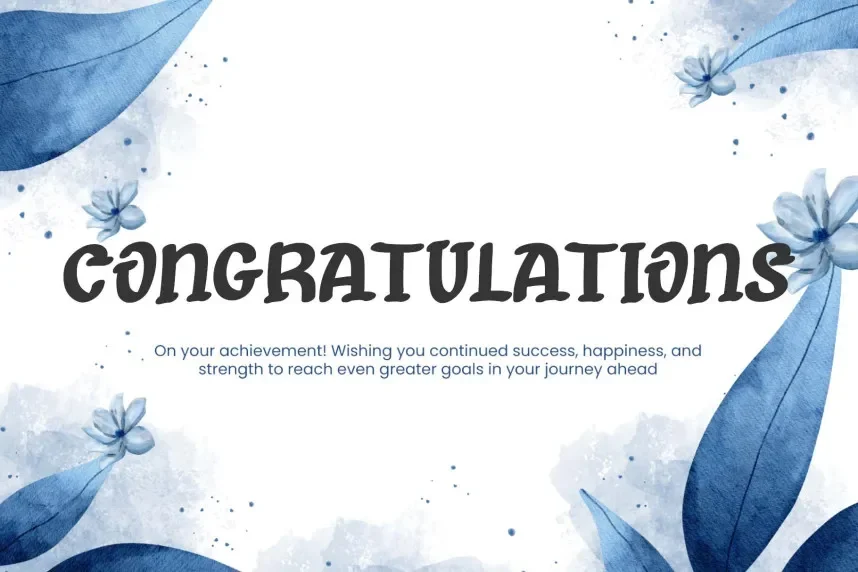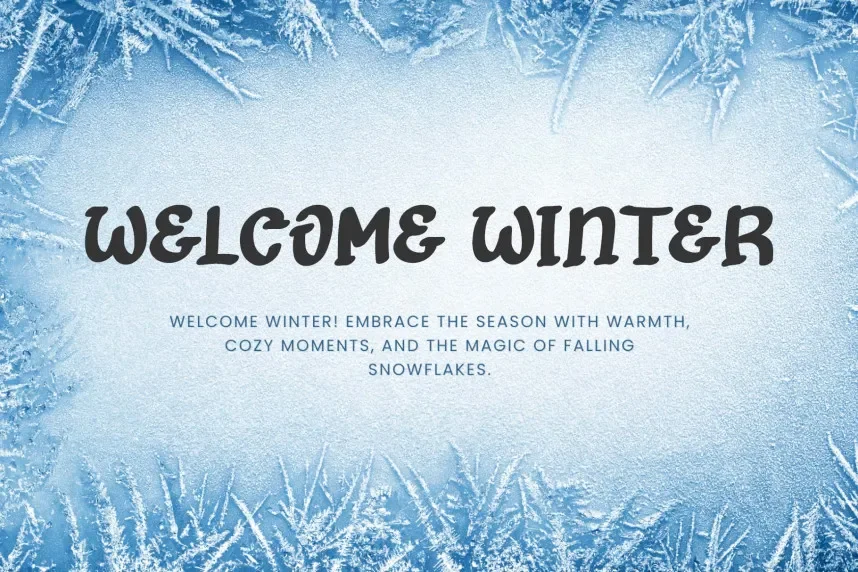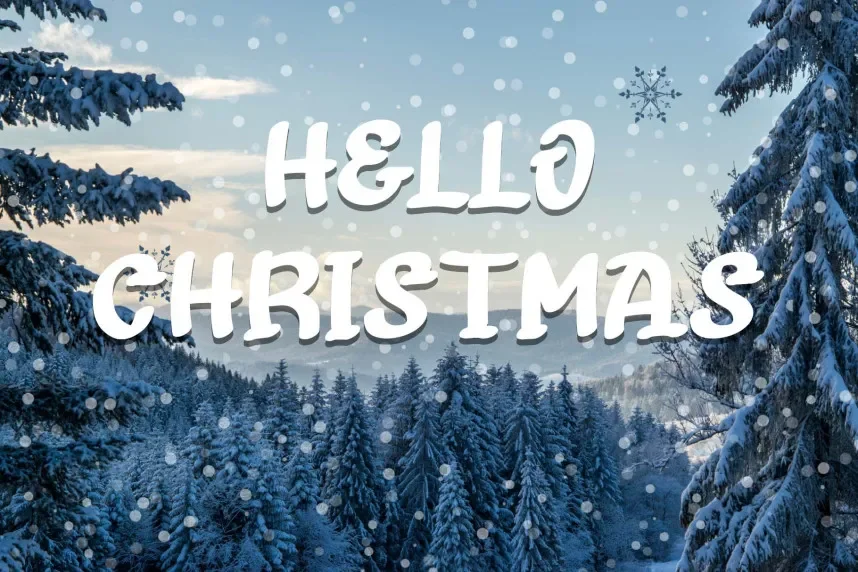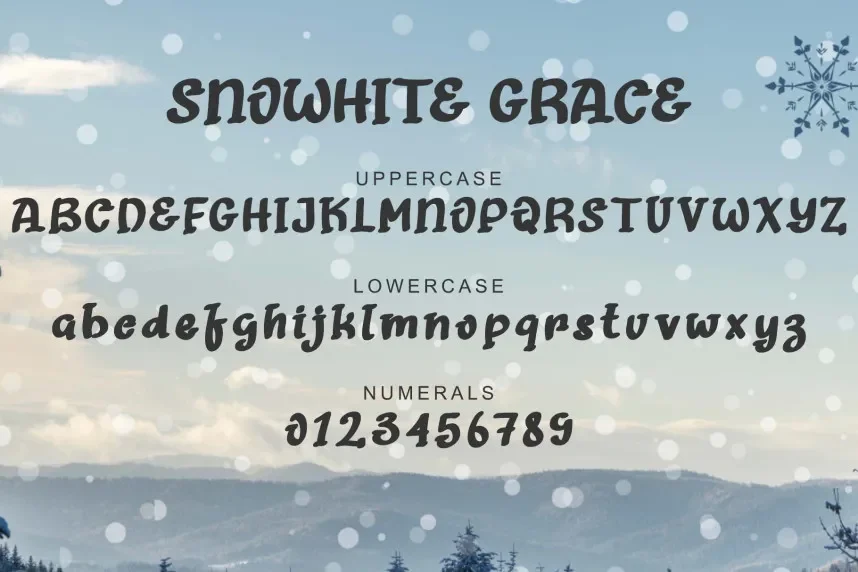
Snowhite Grace Font is a script typeface created to solve readability and consistency issues in decorative text, especially for wedding invitations, branding, and signature-style designs. Designers often need flowing letterforms that feel personal while remaining clear across print materials and digital platforms.
Snowhite Grace is built with connected script characters, smooth curves, and moderate stroke contrast. The letterforms include gentle swashes and natural joins that mimic formal handwriting without excessive ornamentation. This balance helps maintain legibility in short phrases, names, and headings. The font typically includes uppercase and lowercase letters, numerals, punctuation, and basic ligatures.